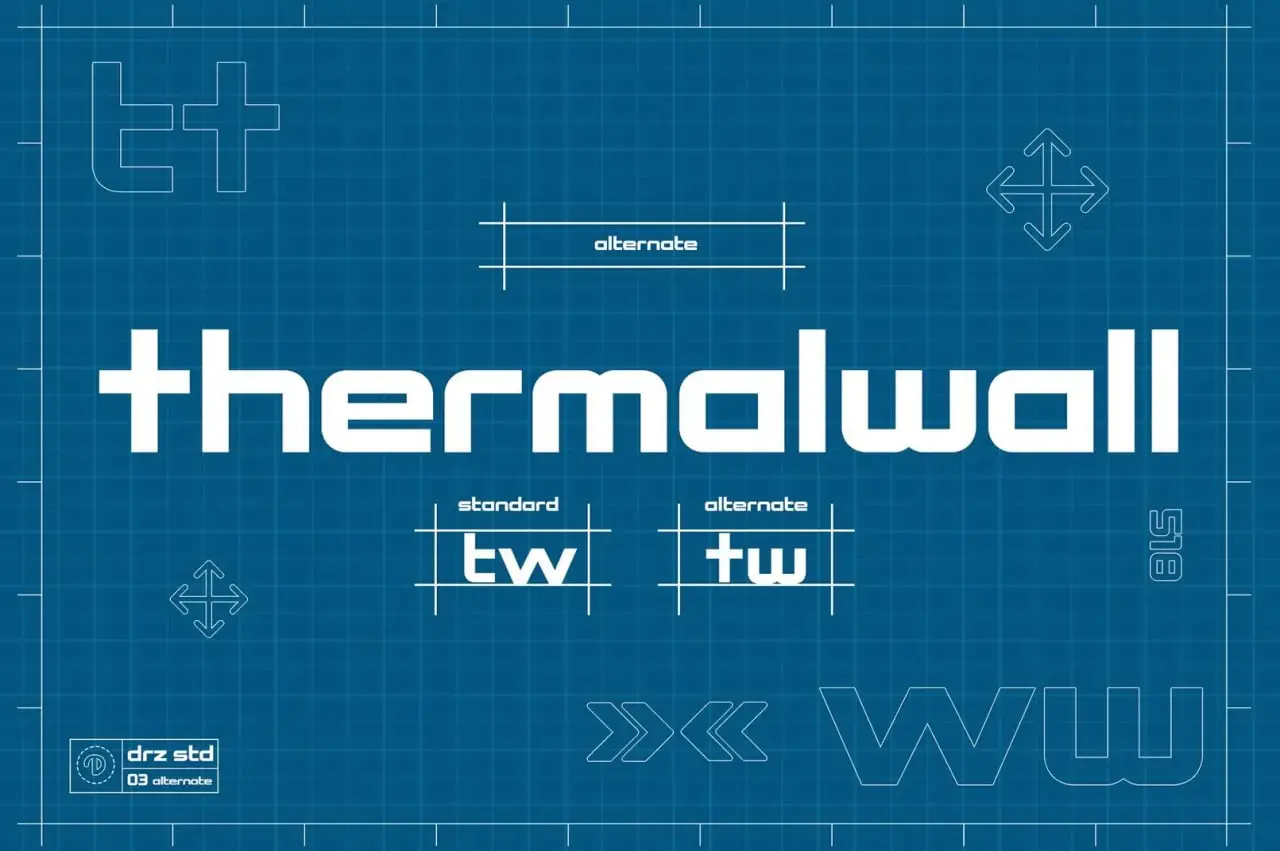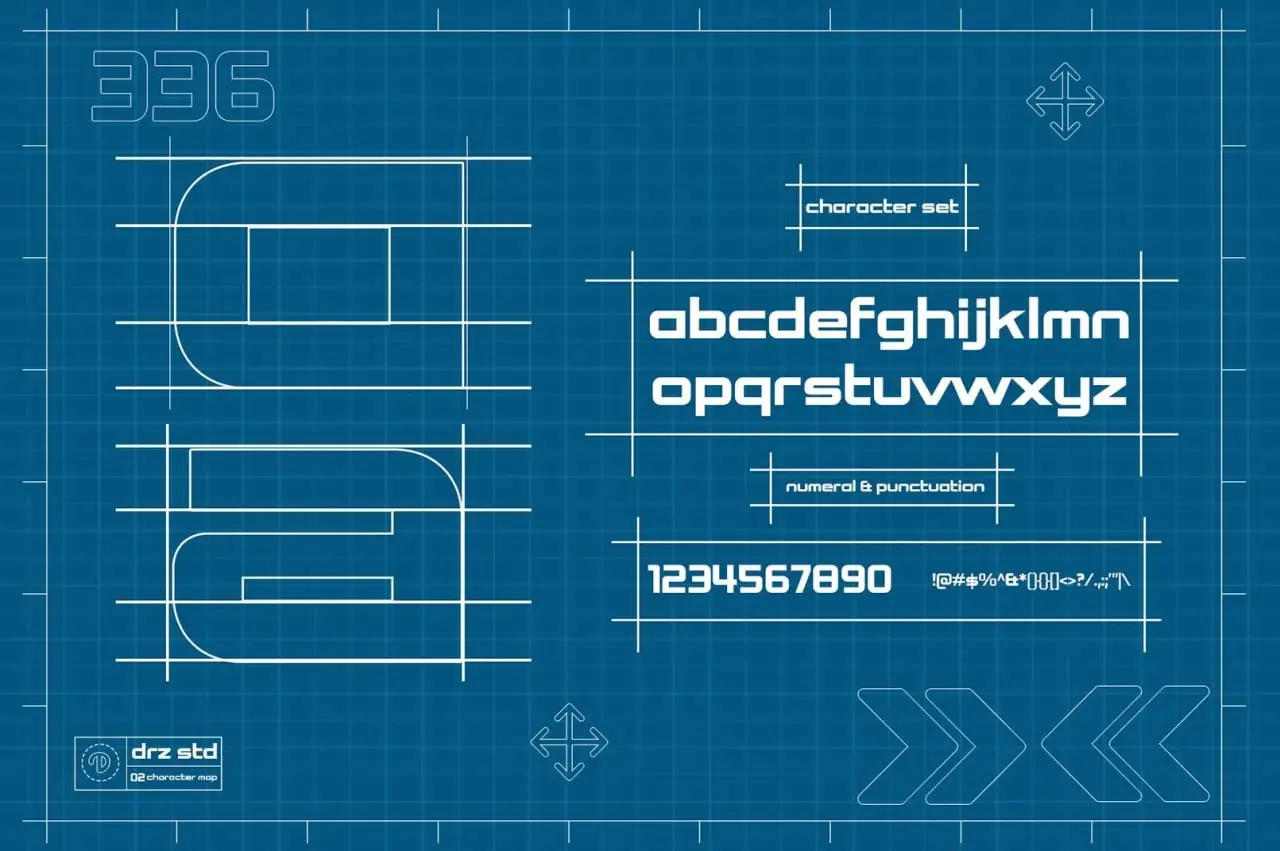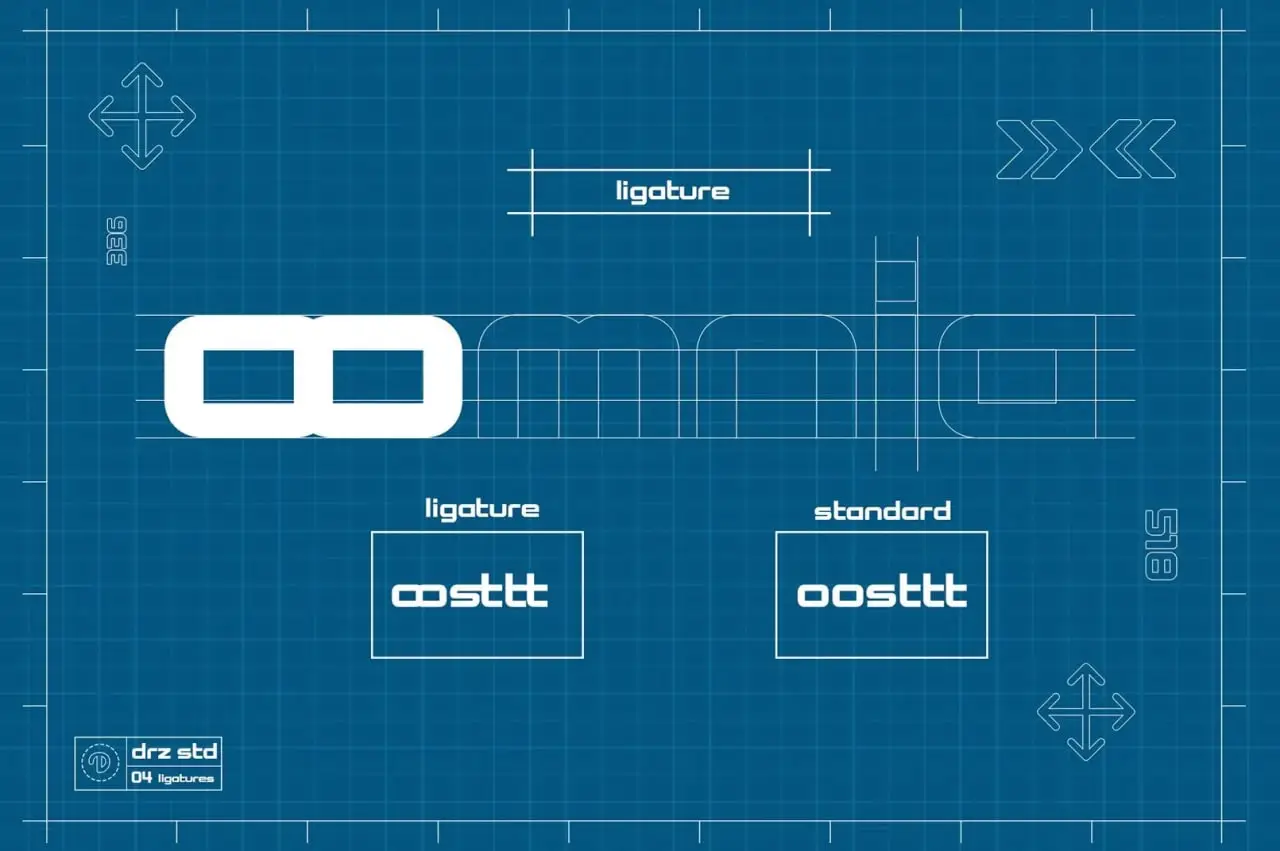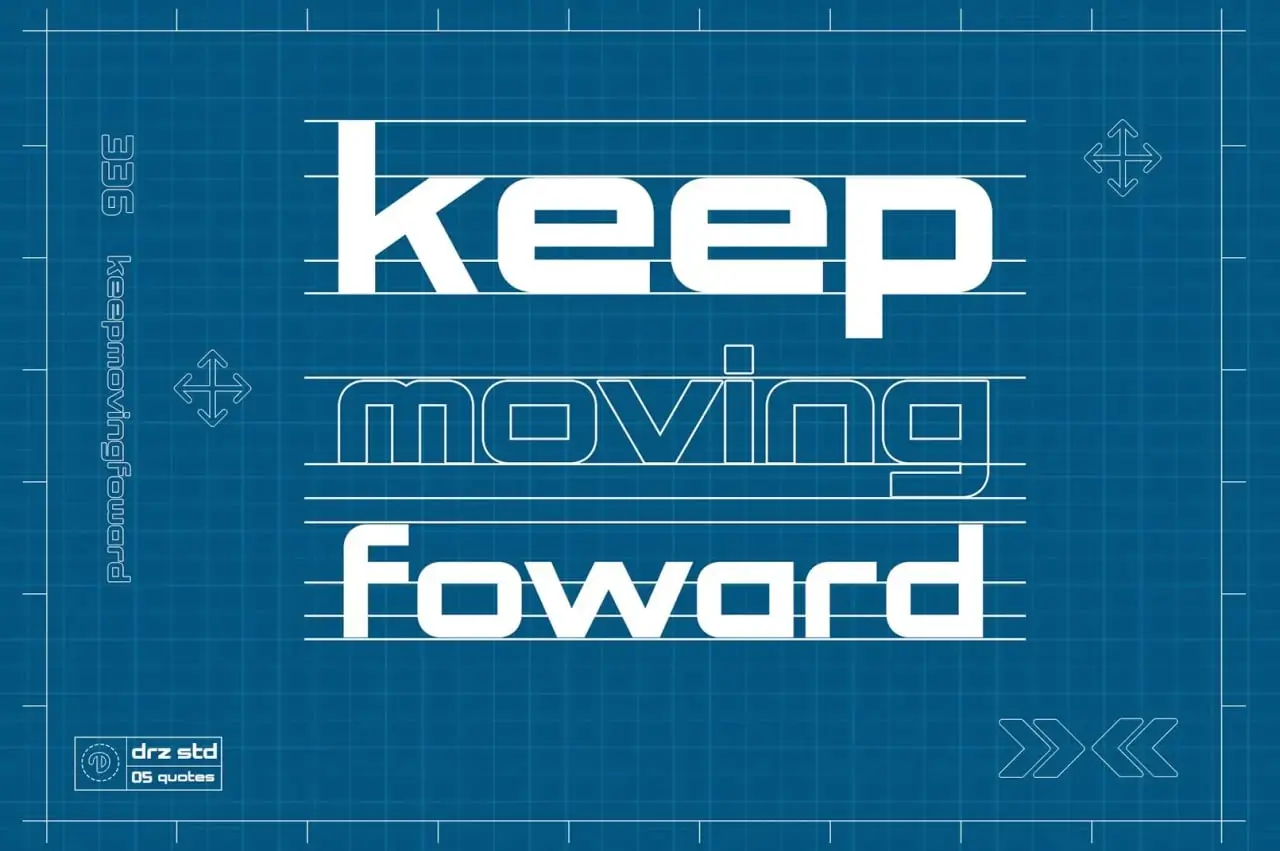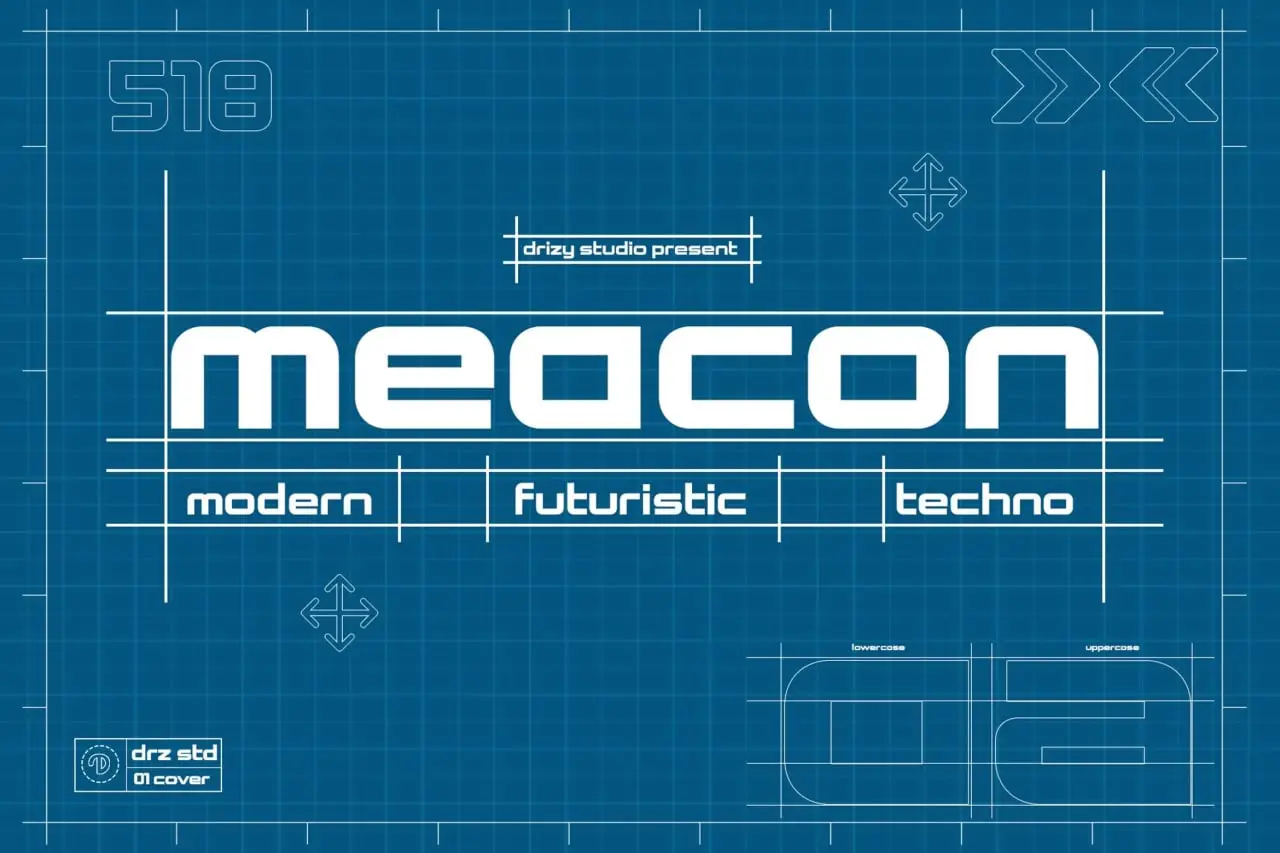
Meacon – Modern Futuristic Font
Introducing Meacon, a modern futuristic font that embodies sleek lines and contemporary aesthetics. Perfect for a variety of design projects, this font is ideal for branding, logos, web design, and print materials.
• Stylish and modern design
• Use for eye-catching headlines and titles
• Great for tech and modern-themed projects
• Pair with minimalistic layouts for best results